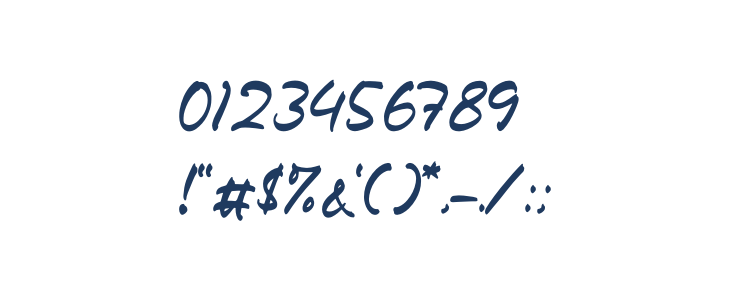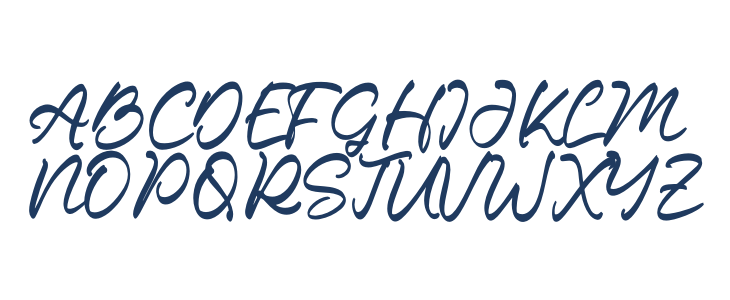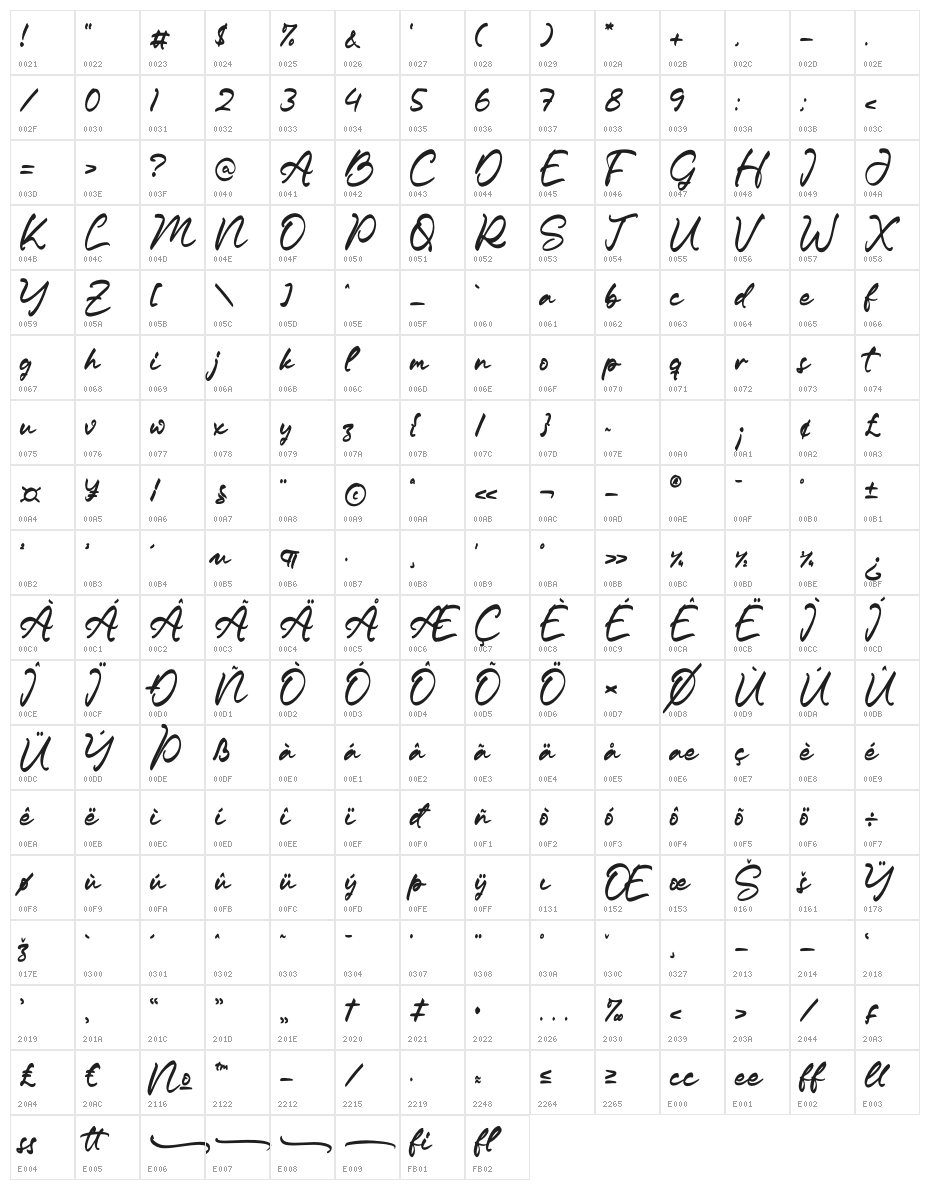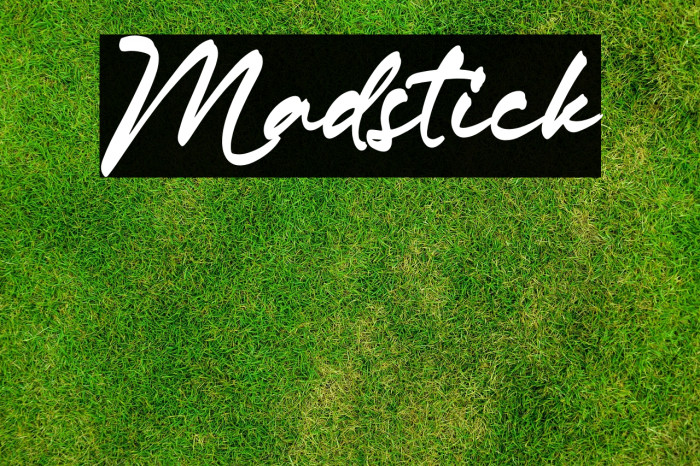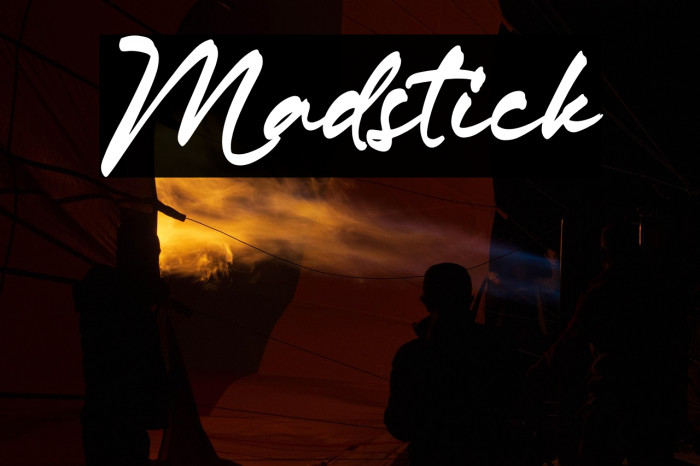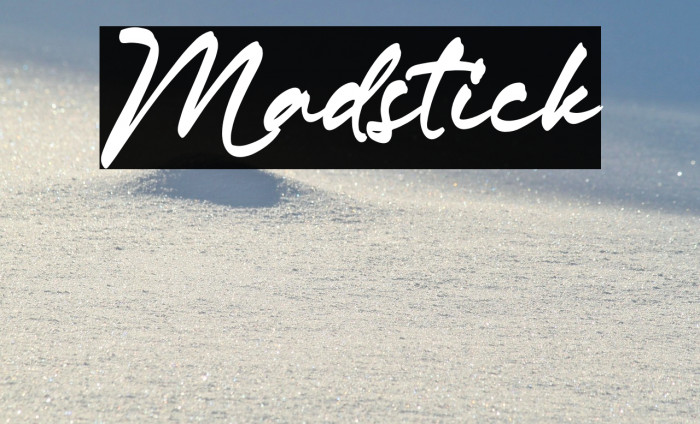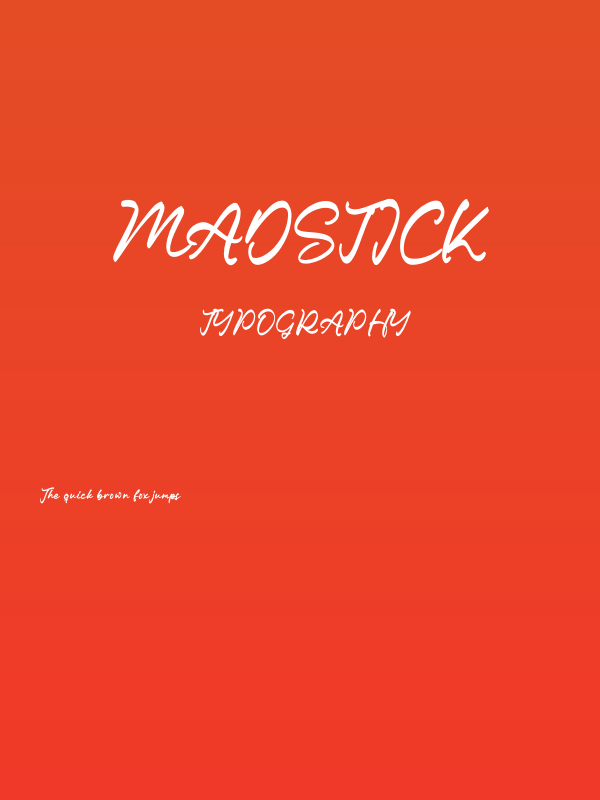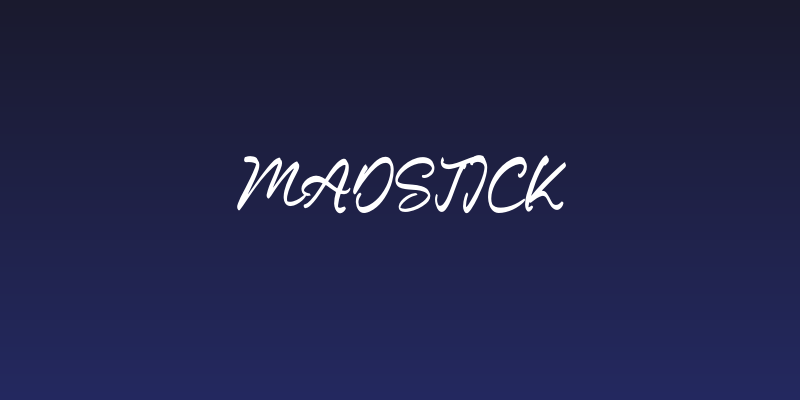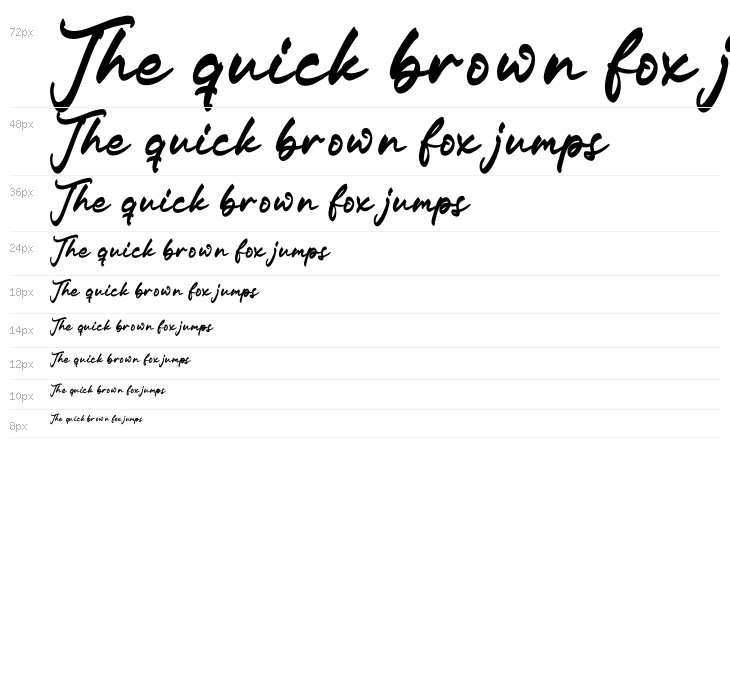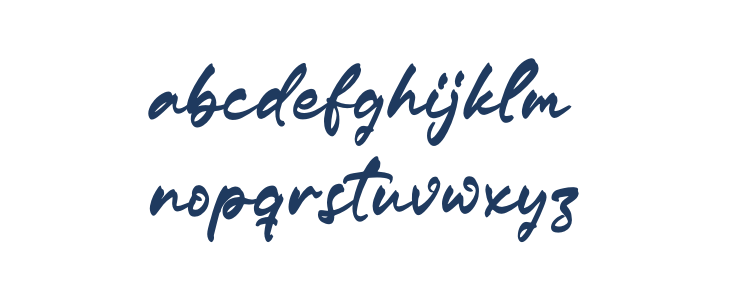
Madstick Font
Madstick Description
A bold, handwritten script font with fluid, connected strokes and a casual, energetic appearance. The characters are slightly slanted, with varying stroke thickness and expressive curves, resembling natural handwriting.
| Overall Style | Decorative, Casual, Handwritten |
| Use Case | Logos, Headlines, Invitations, Posters |
| Proposed Projects | Greeting cards, posters, branding, social media graphics, invitations. |